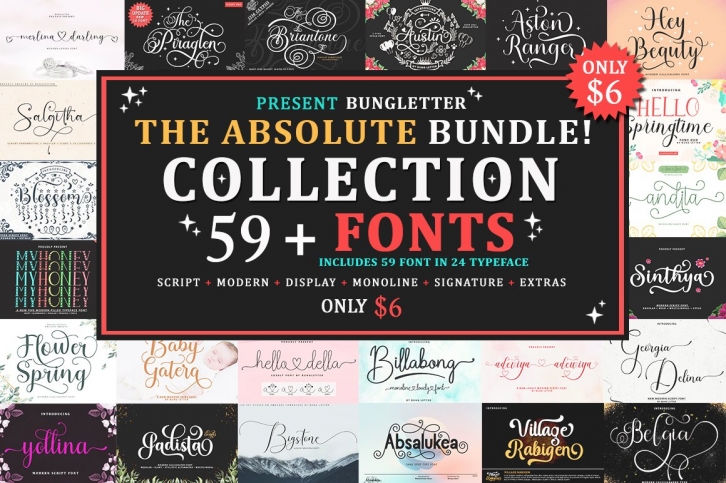
The Absolute Bundle Collection is a trendy and unique font with an authentic style. It was designed by bungletter and it's a great choice for creative people who need such a font. It was released on November 9, 2021 and the file size is 6.12 MB. The Absolute Bundle Collection will add an organic vibe to any design idea!